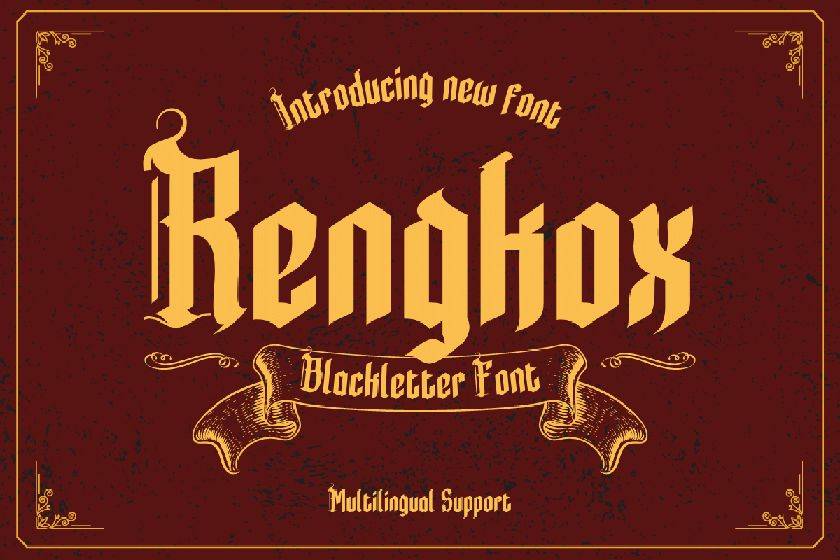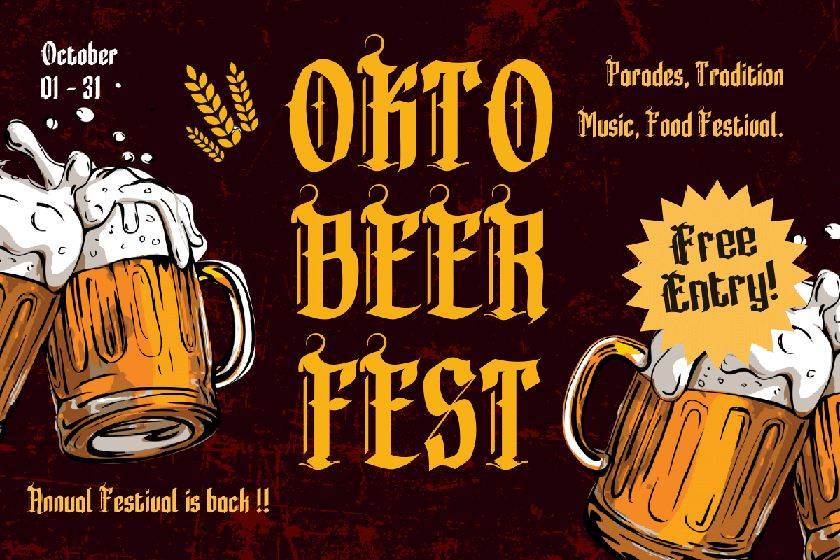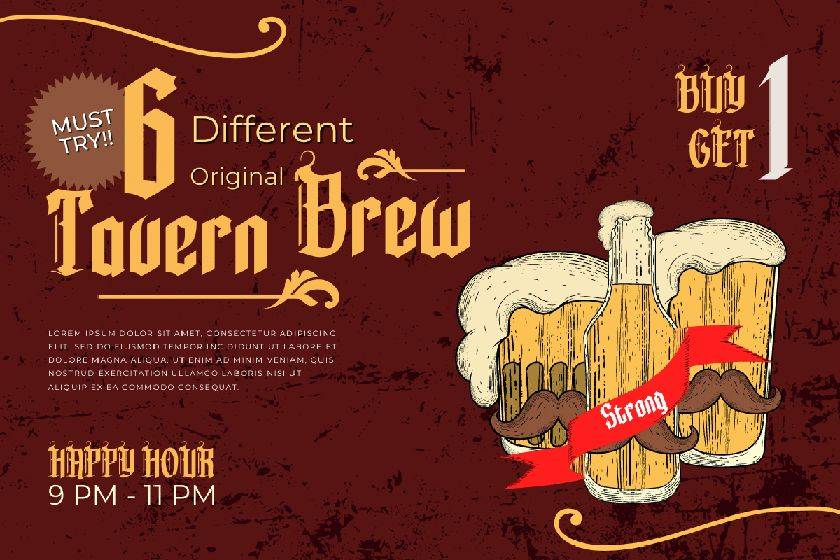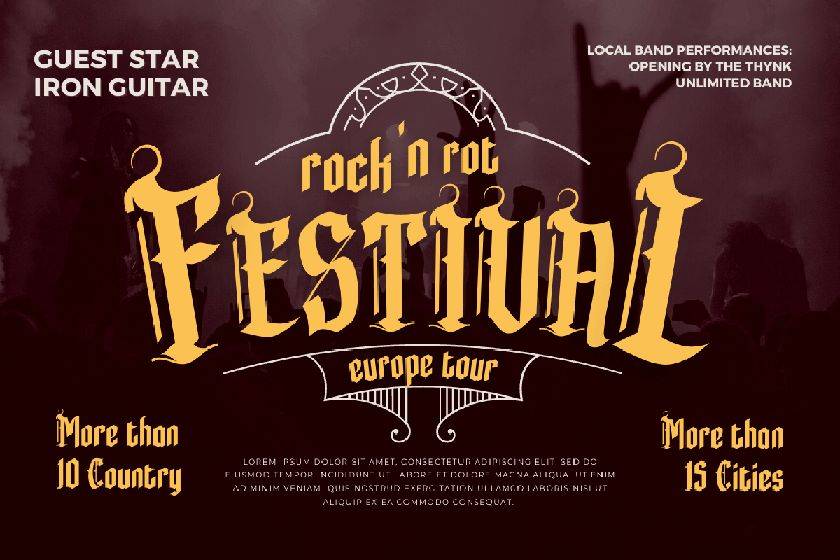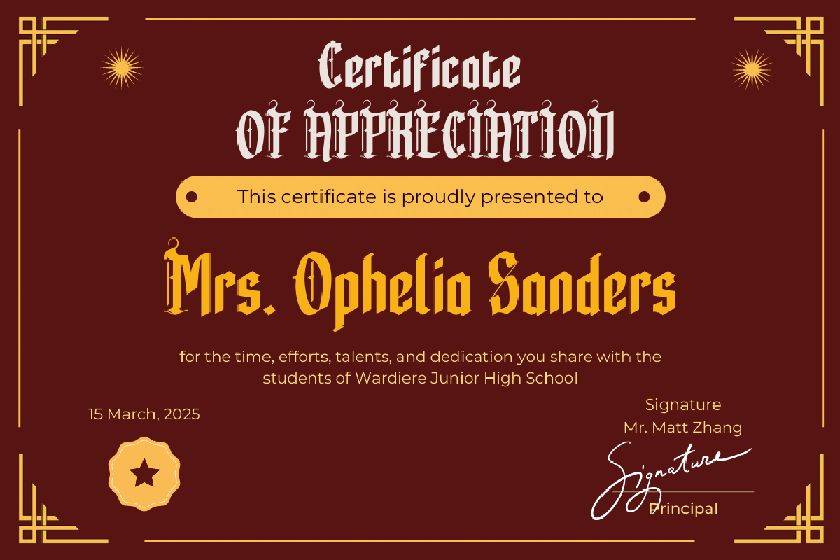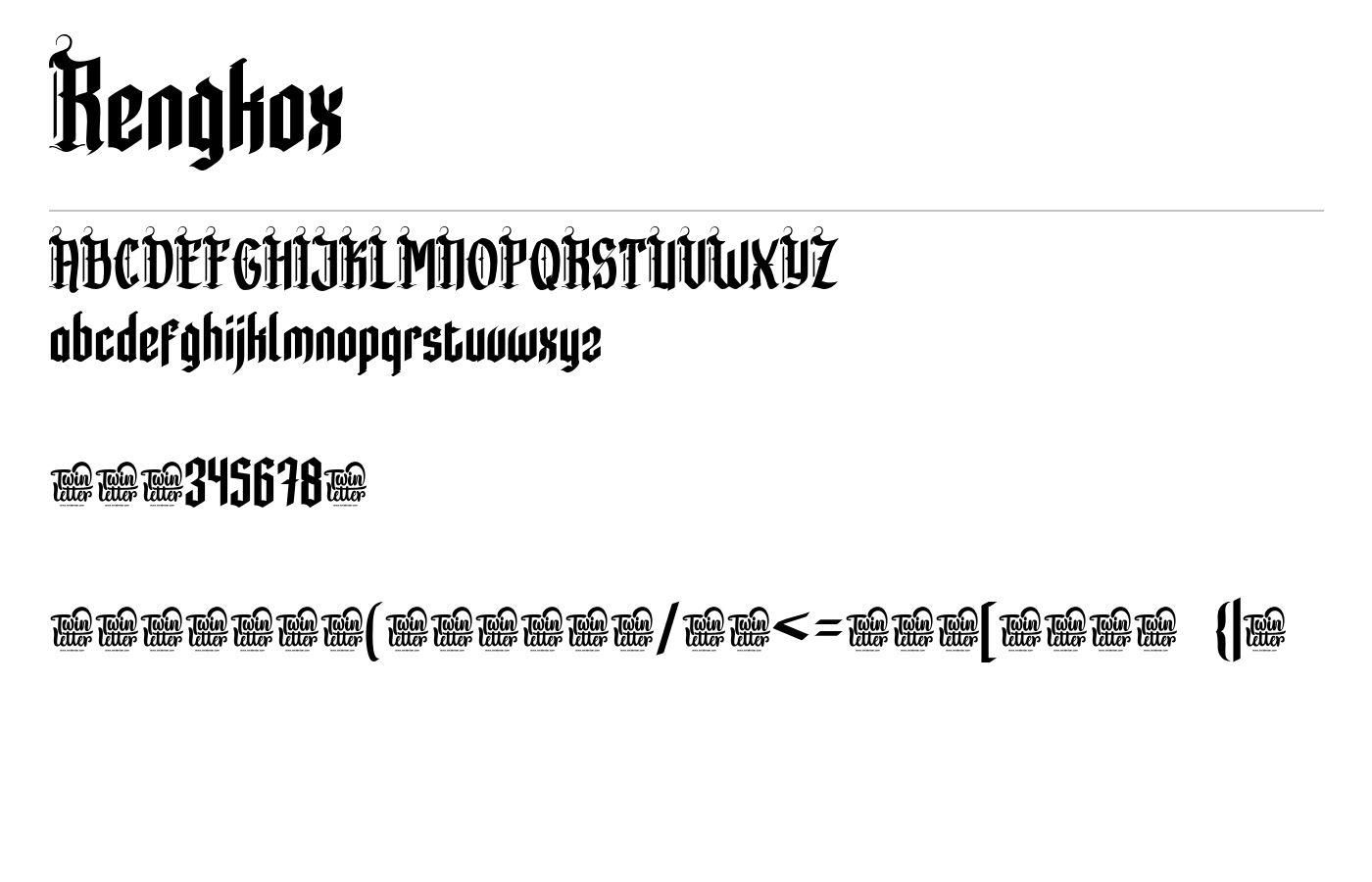
Rengkox is a bold blackletter font with sharp, angular strokes and intricate flourishes that evoke a strong medieval and gothic feel. It features a condensed style with high contrast between thick and thin elements, making it ideal for dramatic headlines, branding, and designs seeking a vintage or hardcore aesthetic. This font works best in logos, posters, and editorial use where a powerful, edgy personality is desired.
Rengkox Font
About Rengkox Font